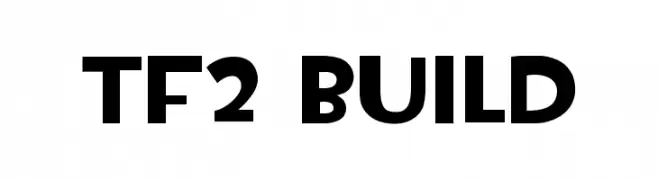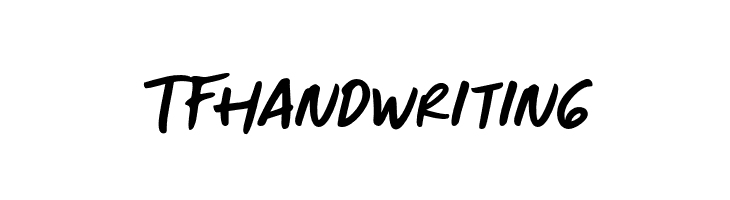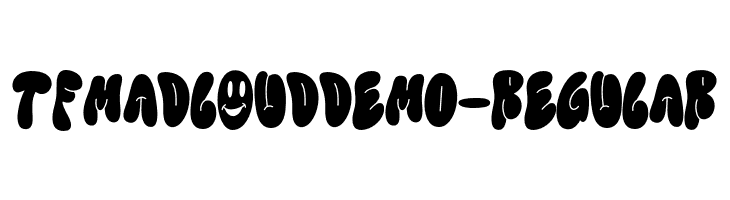
A casual, handwritten-style font with smooth, flowing strokes and a playful aesthetic.
A bold, playful font with rounded, bubbly characters.
A bold, geometric font with a modern and futuristic style.
A distressed, gothic-style font with a bold, grunge appearance.
A modern, geometric sans-serif font with clean lines and balanced proportions.
A sleek, modern italic font with consistent stroke width and elegant design.